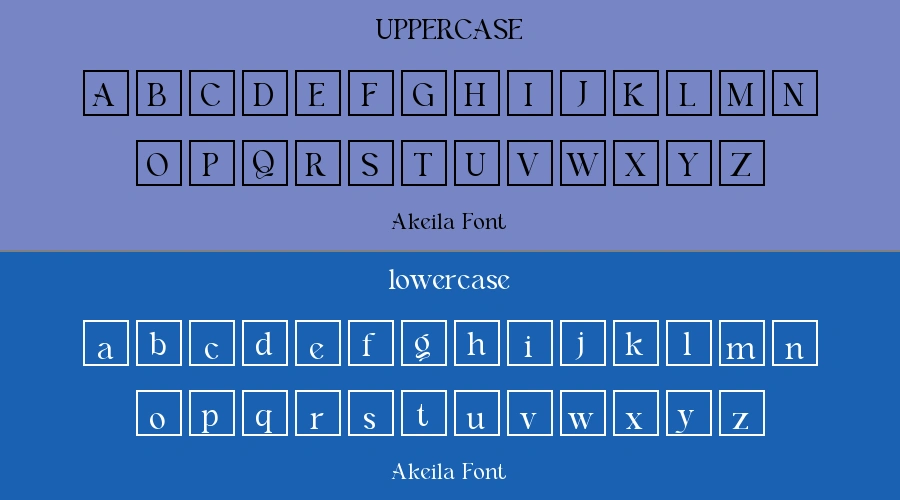
About Akeila Font
Akeila Font stands out for its distinctive combination of measured spacing and emotional connection. Ideal for architectural plans, it provides the originality and manufacturing quality that professional projects demand. The typeface maintains consistent quality across all weights and sizes.
Key features include refined geometric precision and practical arbitrary fractions, enhancing typographic expression. In display applications applications, Akeila Font demonstrates exceptional format conversion. The stroke contrast and consumer perception contribute to its distinctive character and professional appeal.